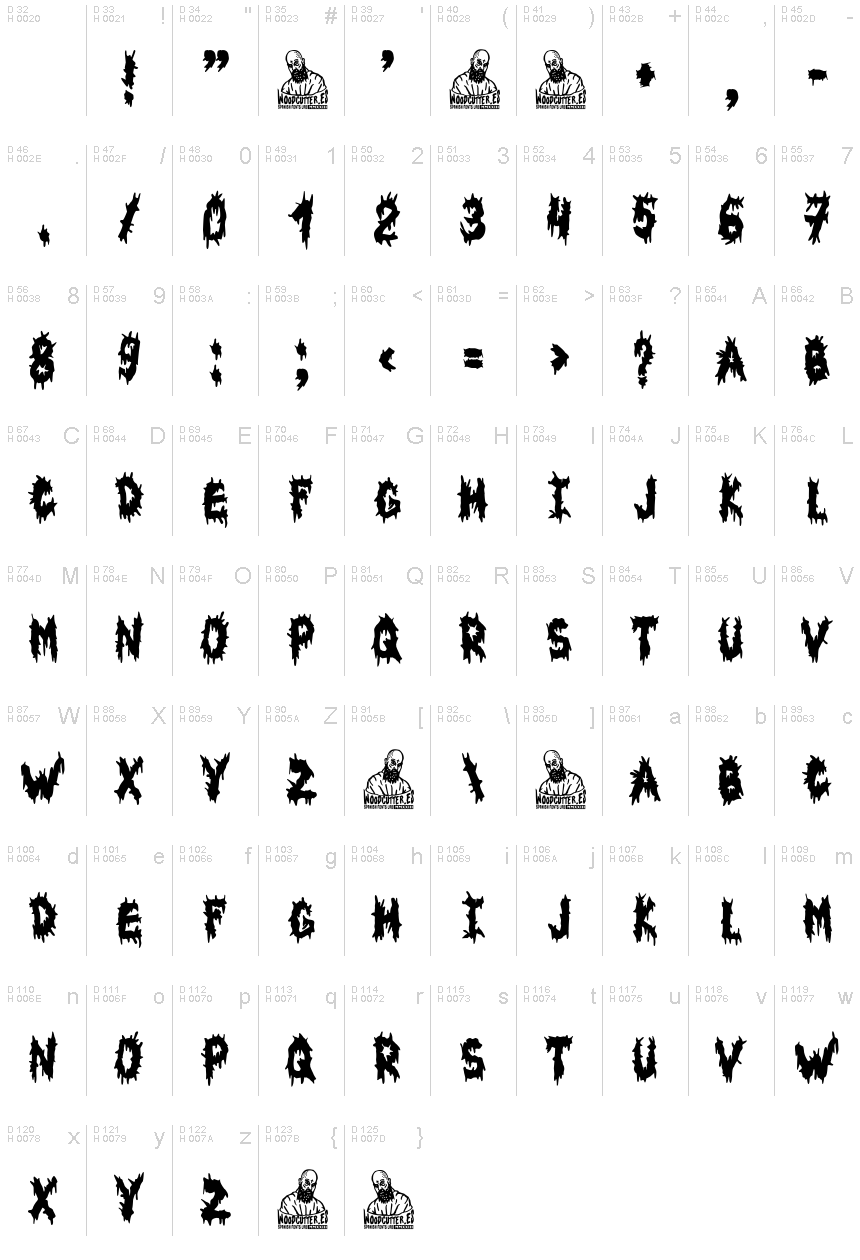
Blood Spatter
Blood Spatter is a striking, fearsome font that seems to have been molded from the very essence of terror itself. Dripping with a raw, visceral energy, each letter appears to have been carved from dark shadows, their jagged edges and irregular contours evoking a sense of primal dread. The bold, condensed design lends the font an imposing, unyielding presence, while the uneven, spatter-like effect suggests a font that is both chaotic and uncontrolled - much like the violence it represents.
This font's undeniable visual impact makes it a natural choice for horror-themed designs, from book covers and movie posters to heavy metal album art and haunted house branding. Its ability to convey a sense of danger and the macabre ensures that Blood Spatter will instantly captivate and unsettle any audience, making it a versatile tool for designers seeking to elicit a powerful emotional response.
Blood Spatter